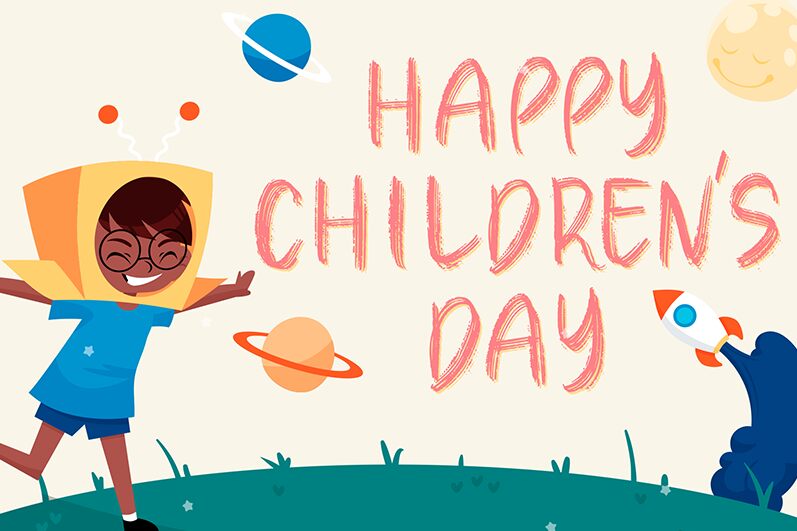
Wild Child is a bold, handmade chalk font designed by Muhammad Hisyam Rivai. Its eye-catching design is perfect for creating memorable logos, posters and titles. It also makes stunning invitations to kids parties and packaging designs.